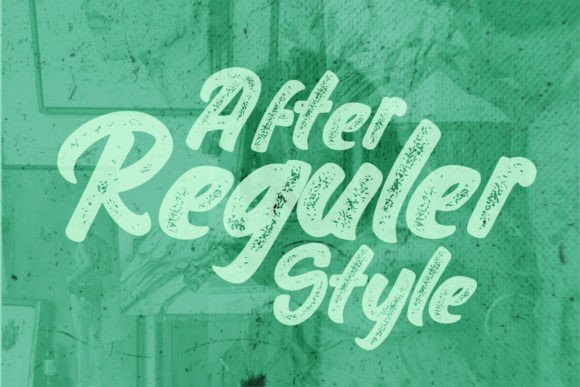
Rallen Distressed Font
Rallen Distressed has been released for those looking for a Classic Typewriter and Cursive style that fits perfectly into an old rustic hand-drawn script and classic design themes for many projects such as Badge/Emblem Logos, corporate branding, or Logotypes.